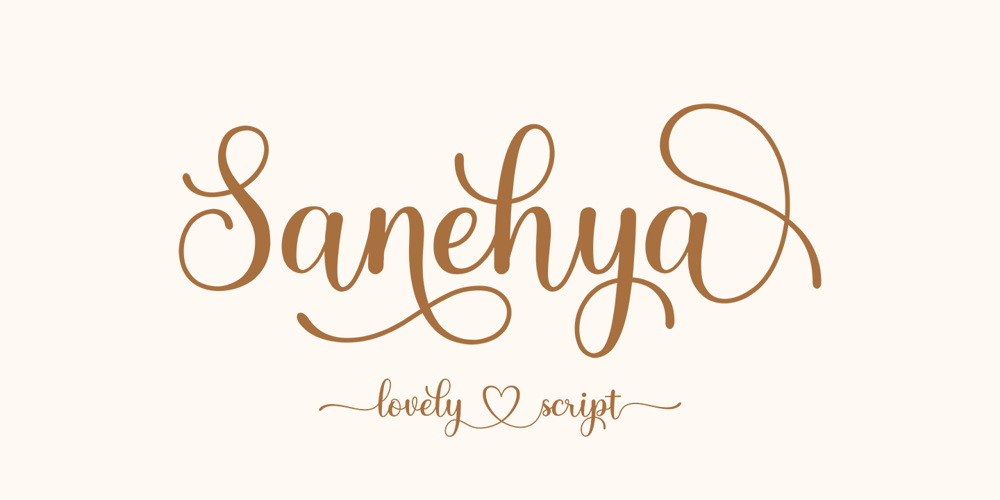
Sanehya Font Family was designed by Faqihuddin Ilza and published by Crowntype Studio. Sanehya contains 3 styles and family package options. Sanehya is a script type family of three fonts. It is inspired by Gorgeous Fonts and has a soft and welcoming look. Sanehya can be used for branding, packaging and wherever you need a script font that is easy to read and smooth. Sanehya has many ties, strokes and alternate characters that will make your designs unique and beautiful.You can also purchase Sanehya as a Font Family and adjust the weight of Sanehya seamlessly between Italic and Bold weights. Note that you need design software that supports the Font Family.If you have any questions, feel free to contact me by email: crowntypestudio@gmail.comThank you!